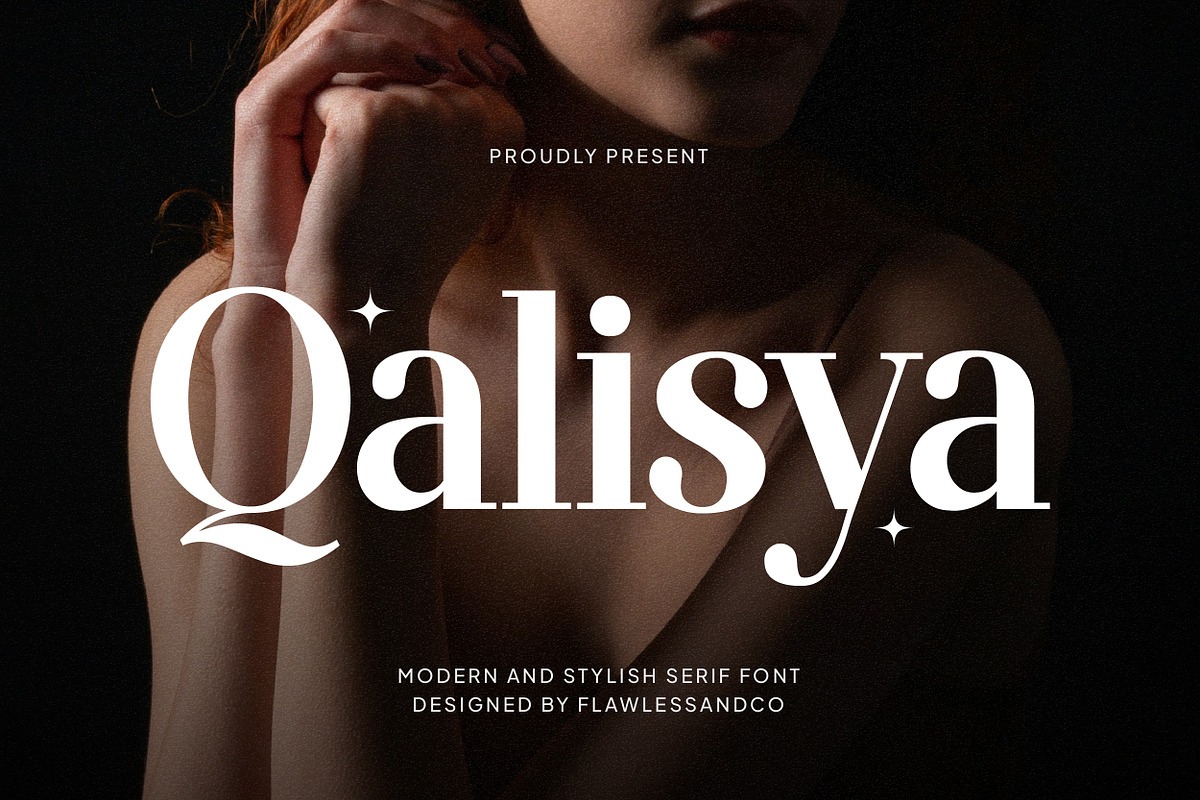
Qalisya – Modern Serif Font
Qalisya – Modern Serif Font is a clean and thoughtfully built typeface that works seamlessly for both professional branding and everyday creative uses. Qalisya is a refined modern serif typeface that combines timeless elegance with a stylish contemporary flair. Designed with graceful curves and high-contrast letterforms, Qalisya brings a luxurious and sophisticated feel to any design. Its sleek and fashionable appearance makes it perfect for creating standout visuals while maintaining a clean and professional aesthetic. Whether used for branding or editorial design, Qalisya delivers beauty, clarity, and a strong visual presence.